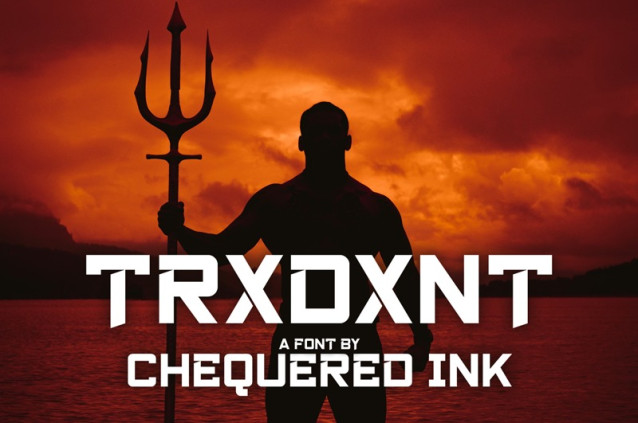
Trxdxnt Font
Trxdxnt Font is a simple and modern display font suitable for quotes, logos, headings, titles, and many more. Use it on any of your creative projects, and your designs will become outstanding!